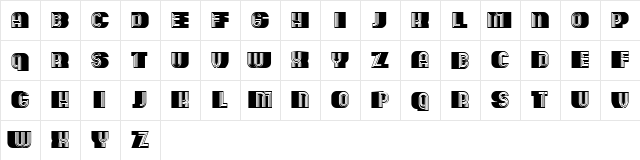
Oliba Regular
Design Context for Oliba Typeface
Oliba is a composed and adaptable typeface that performs quietly and consistently across a wide range of design contexts.